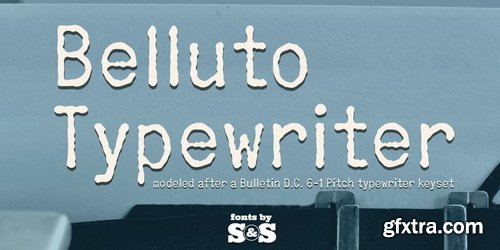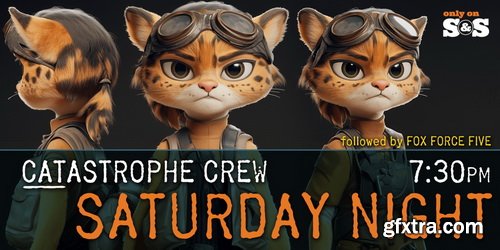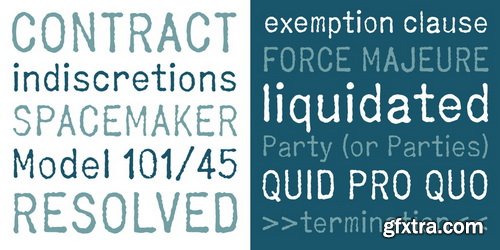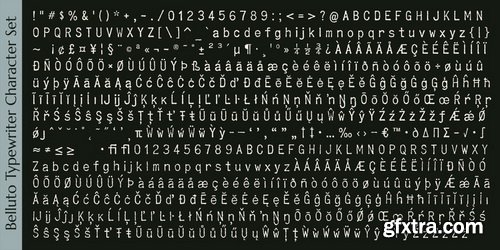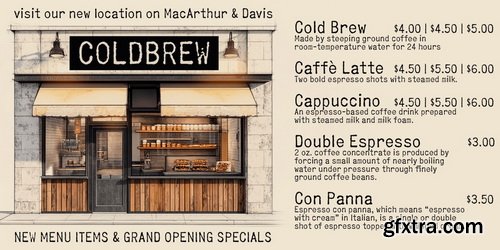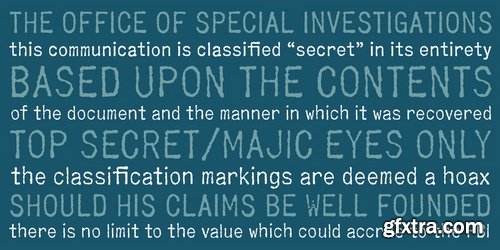
Bulleto Typewriter brings the rare individuality of the Bulletin D.C. 6-1 Pitch vintage typewriter keyset to the digital age. Bulleto has a unique sans serif typestyle that feels right at home in vintage military top secret document recreations as well as vintage script reproductions and much more.